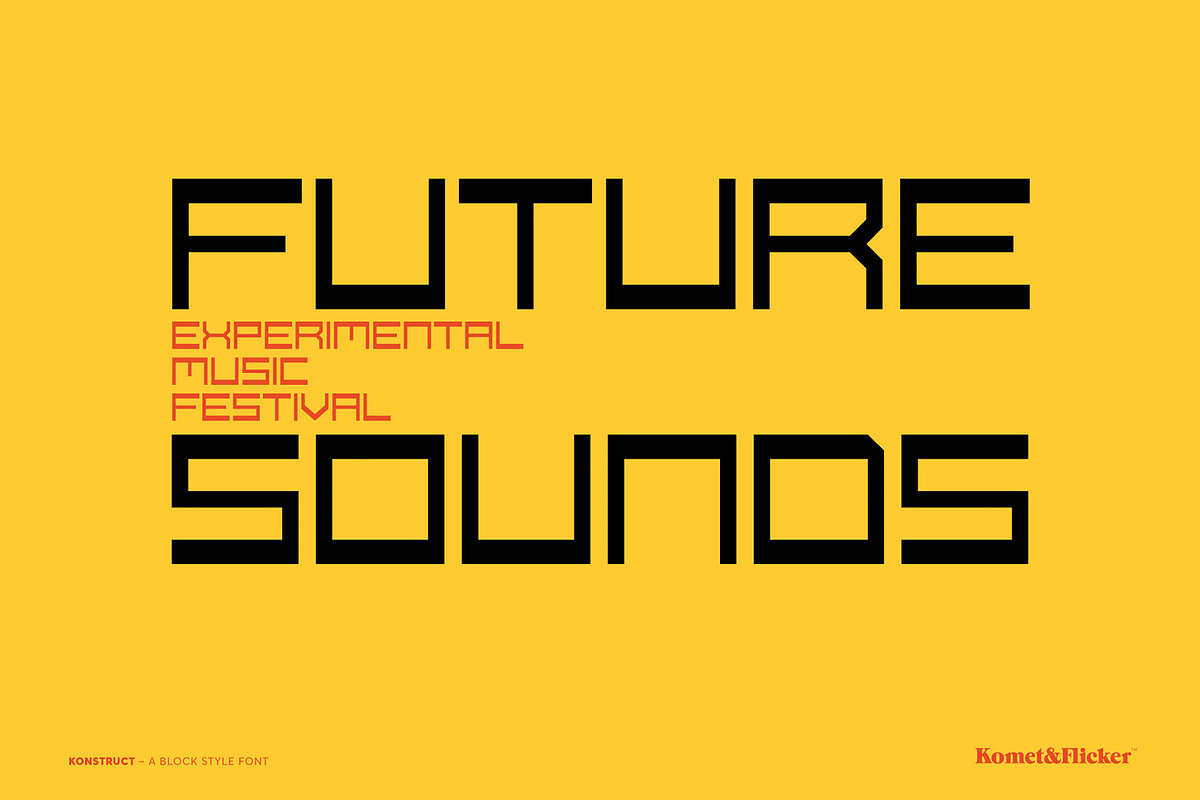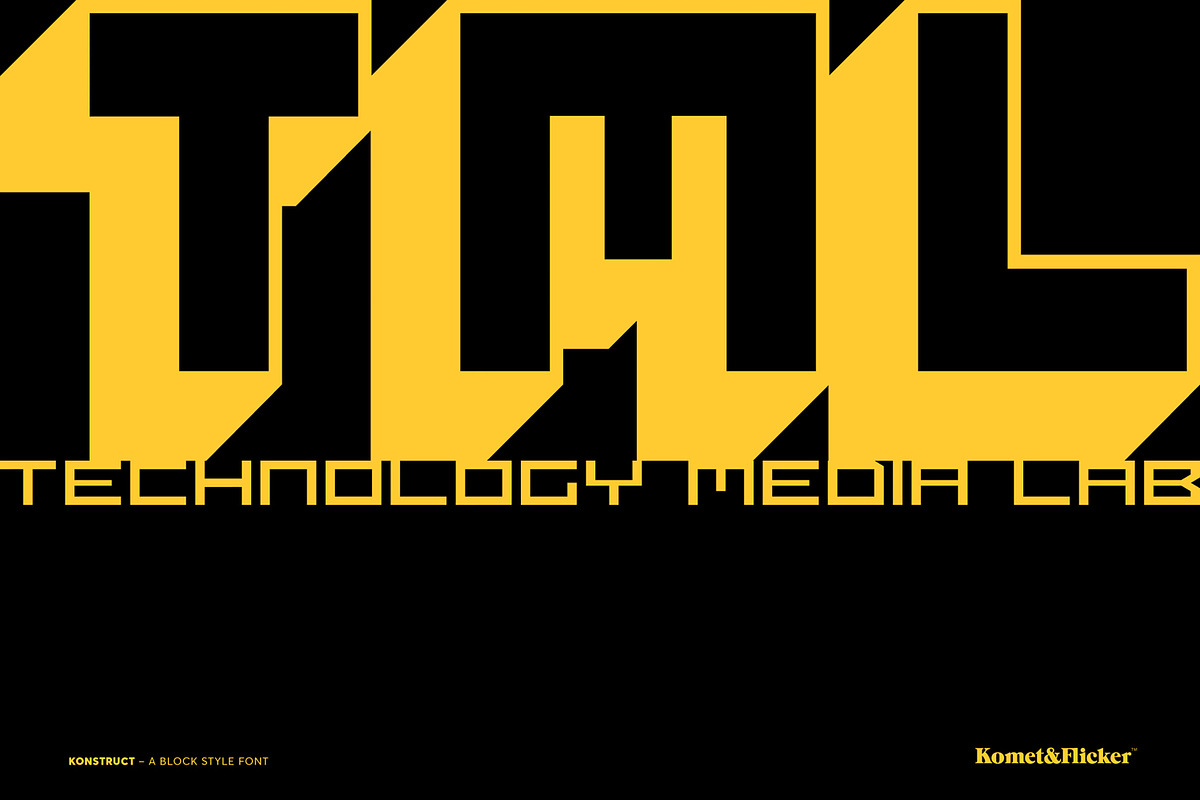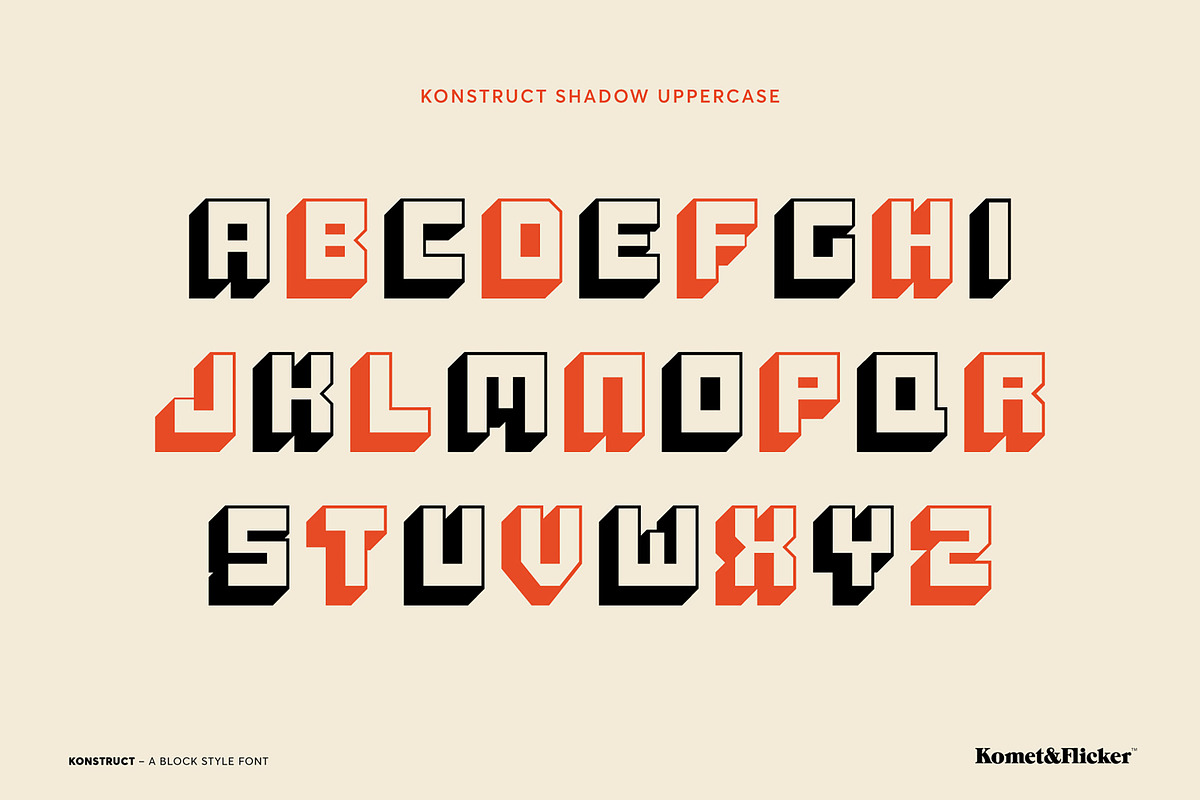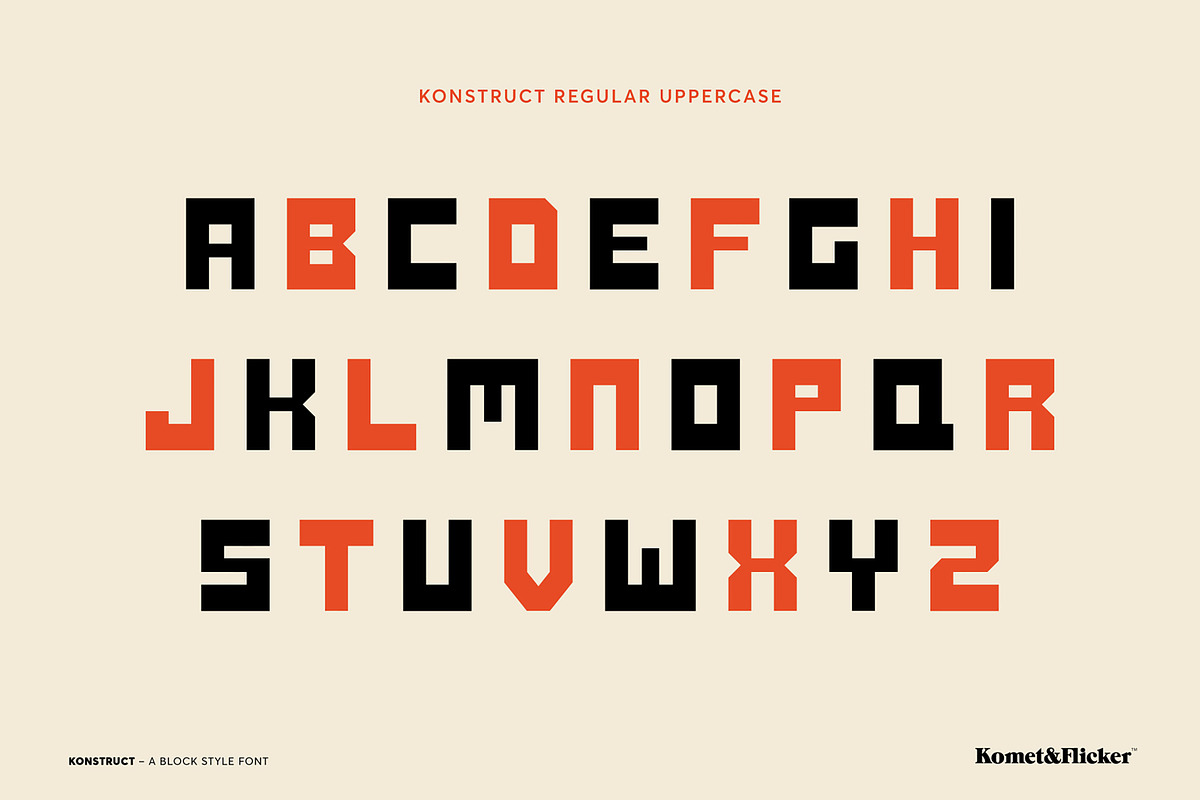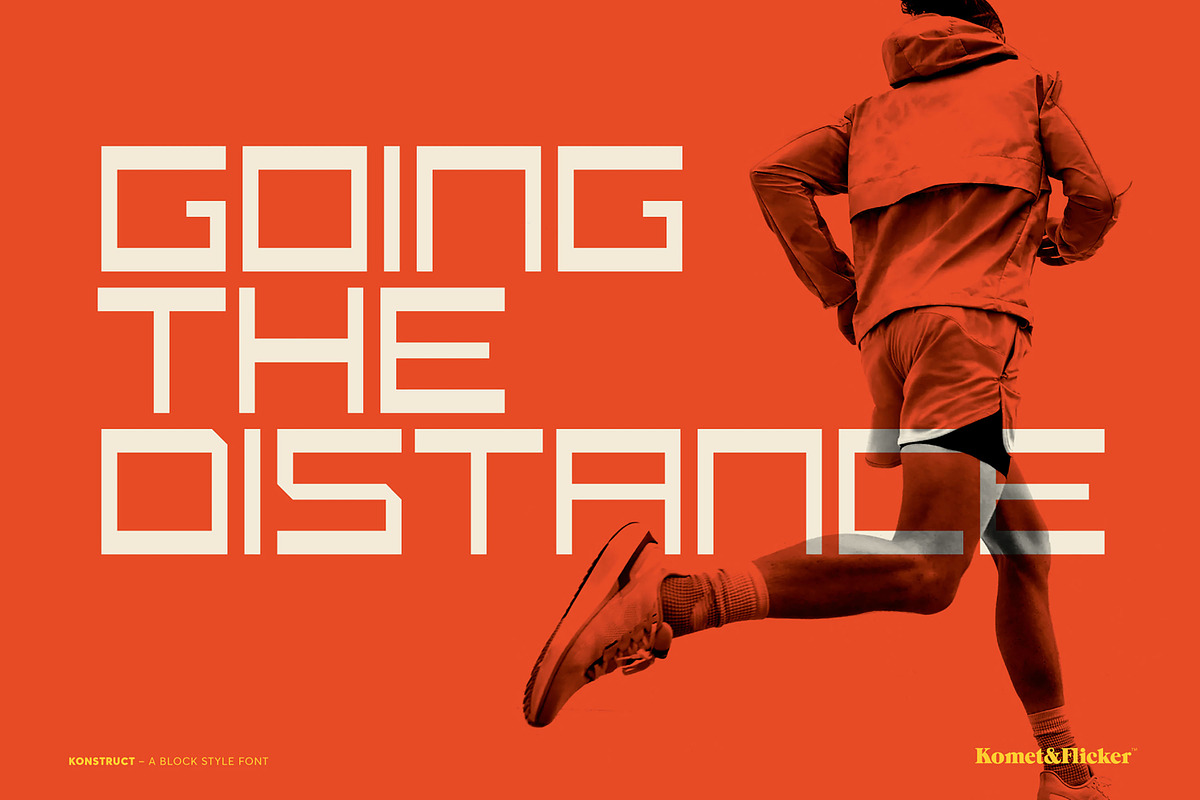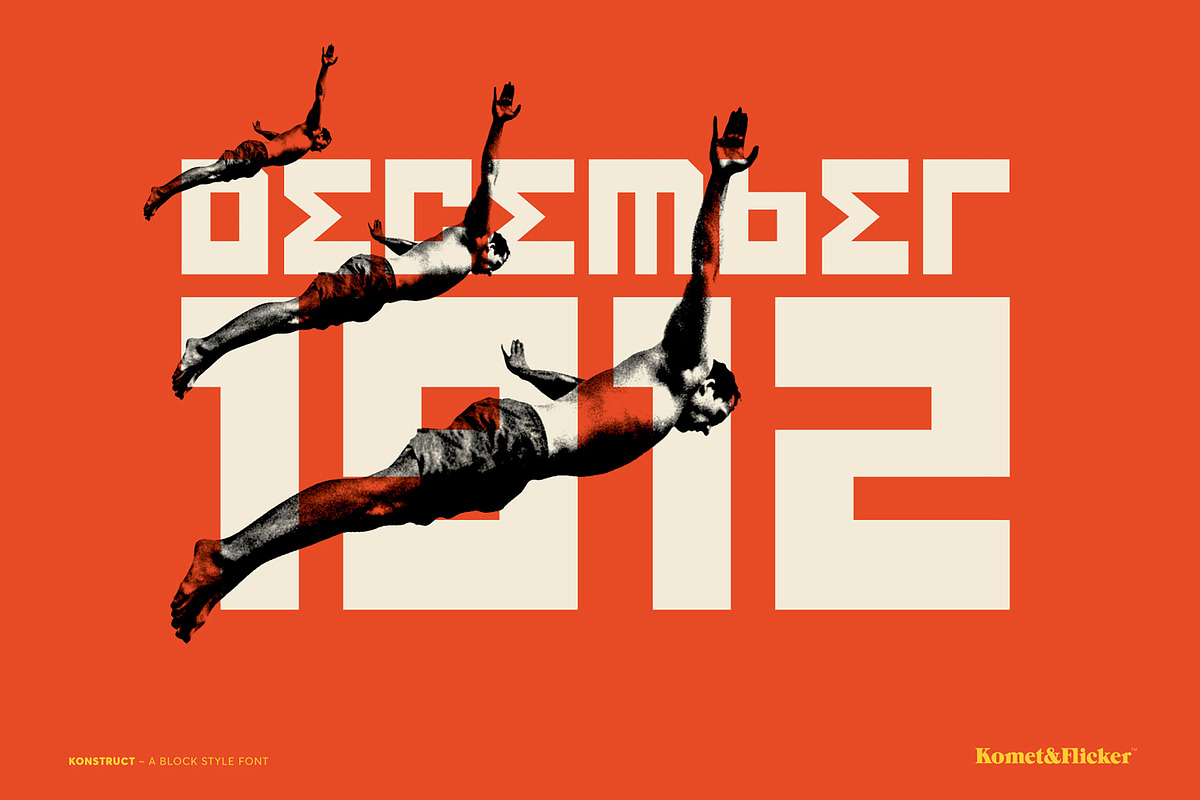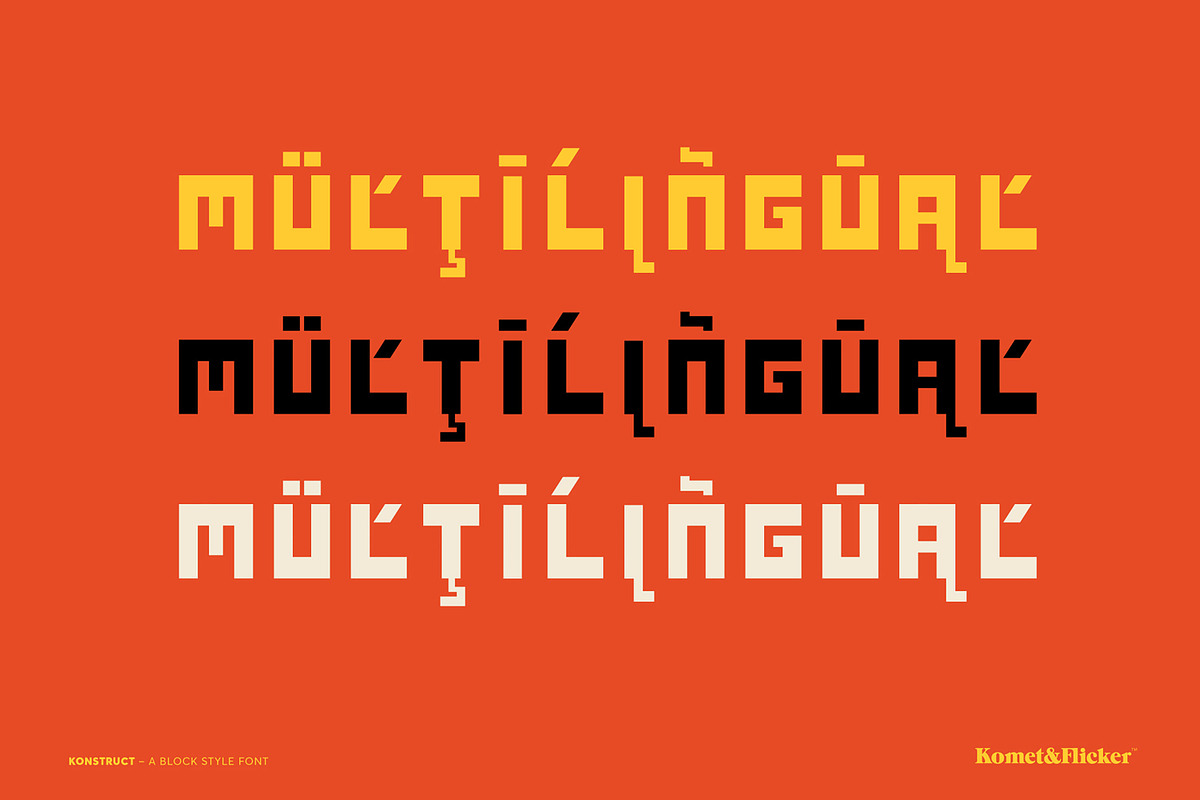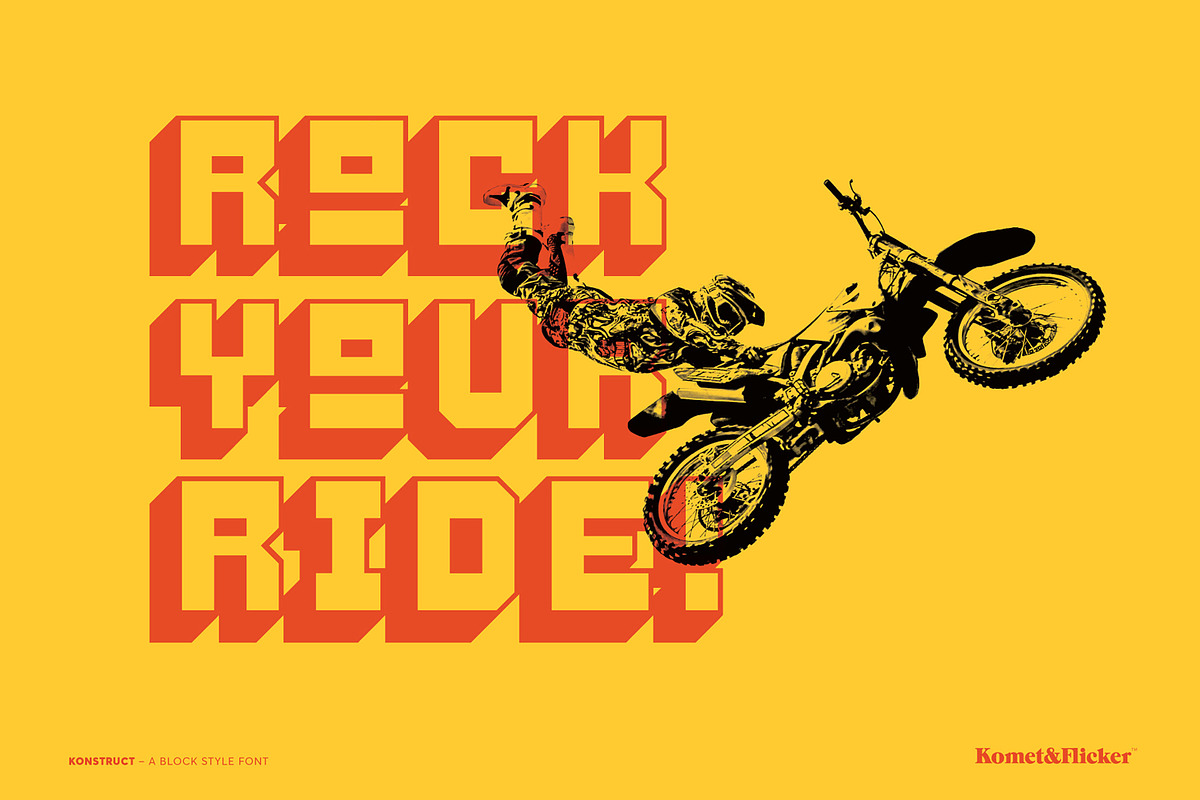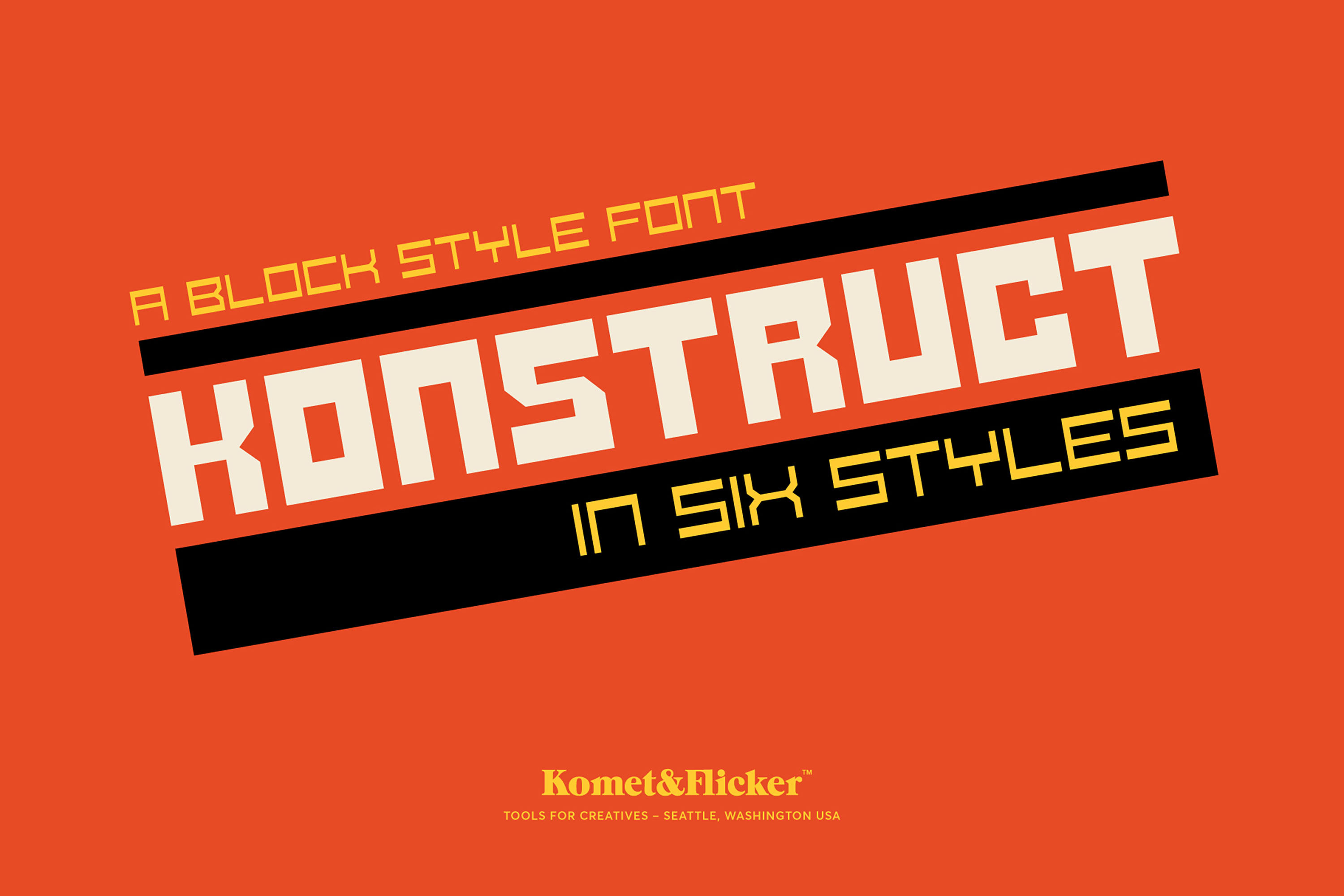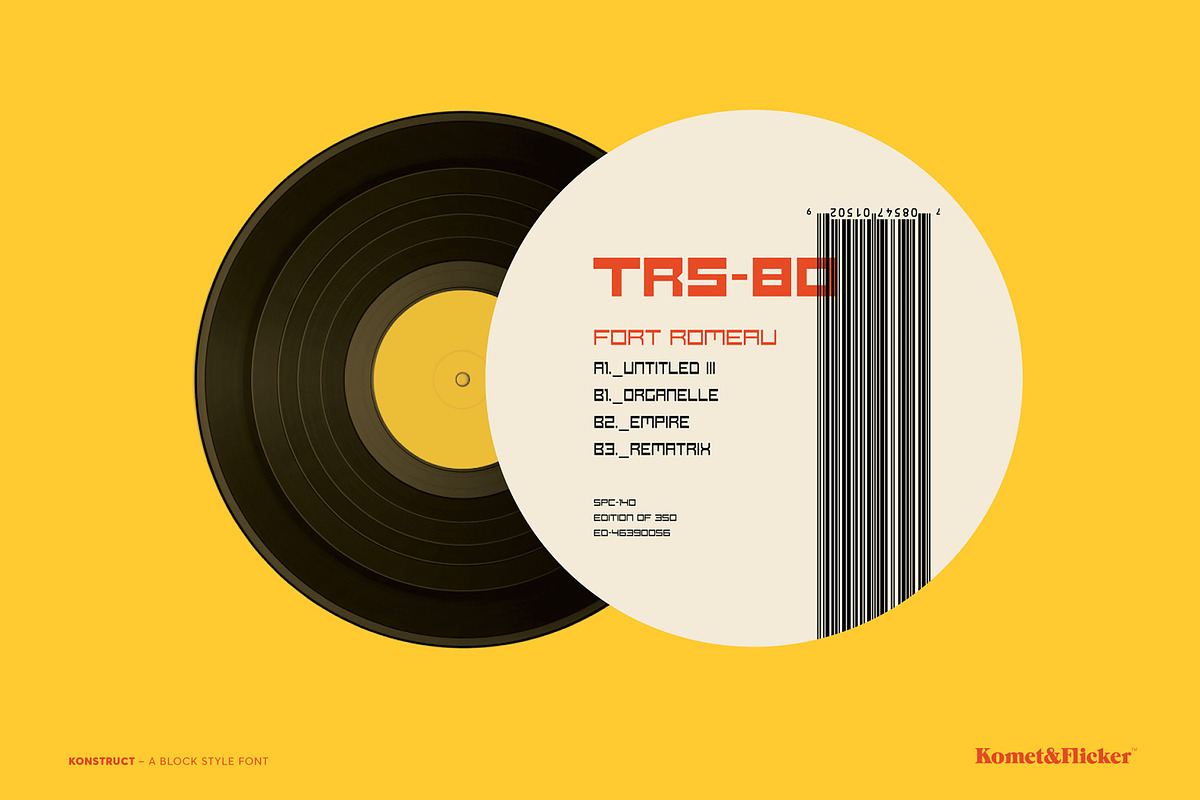
KONSTRUCT - A Block Style Font
Inspired by classic Soviet typography, KONSTRUCT stands out with its strong, geometric lines and commanding presence. This block-style font is a tribute to the era's distinctive visual language, offering a nostalgic nod to retro aesthetics while maintaining contemporary usability.
The KONSTRUCT font family includes six distinctive styles, each meticulously crafted to provide a range of options for your design needs. Whether you’re creating dynamic athletic branding or retro-tech visuals, this font delivers a powerful punch with its robust, blocky forms.
KONSTRUCT comes in six unique styles:
- KONSTRUCT Light
- KONSTRUCT Light Expanded
- KONSTRUCT Regular
- KONSTRUCT Regular Expanded
- KONSTRUCT Shadow
- KONSTRUCT Shadow Base + Fill
Please note: KONSTRUCT Shadow Fill and KONSTRUCT Shadow Base are two separate fonts but together create a single style.